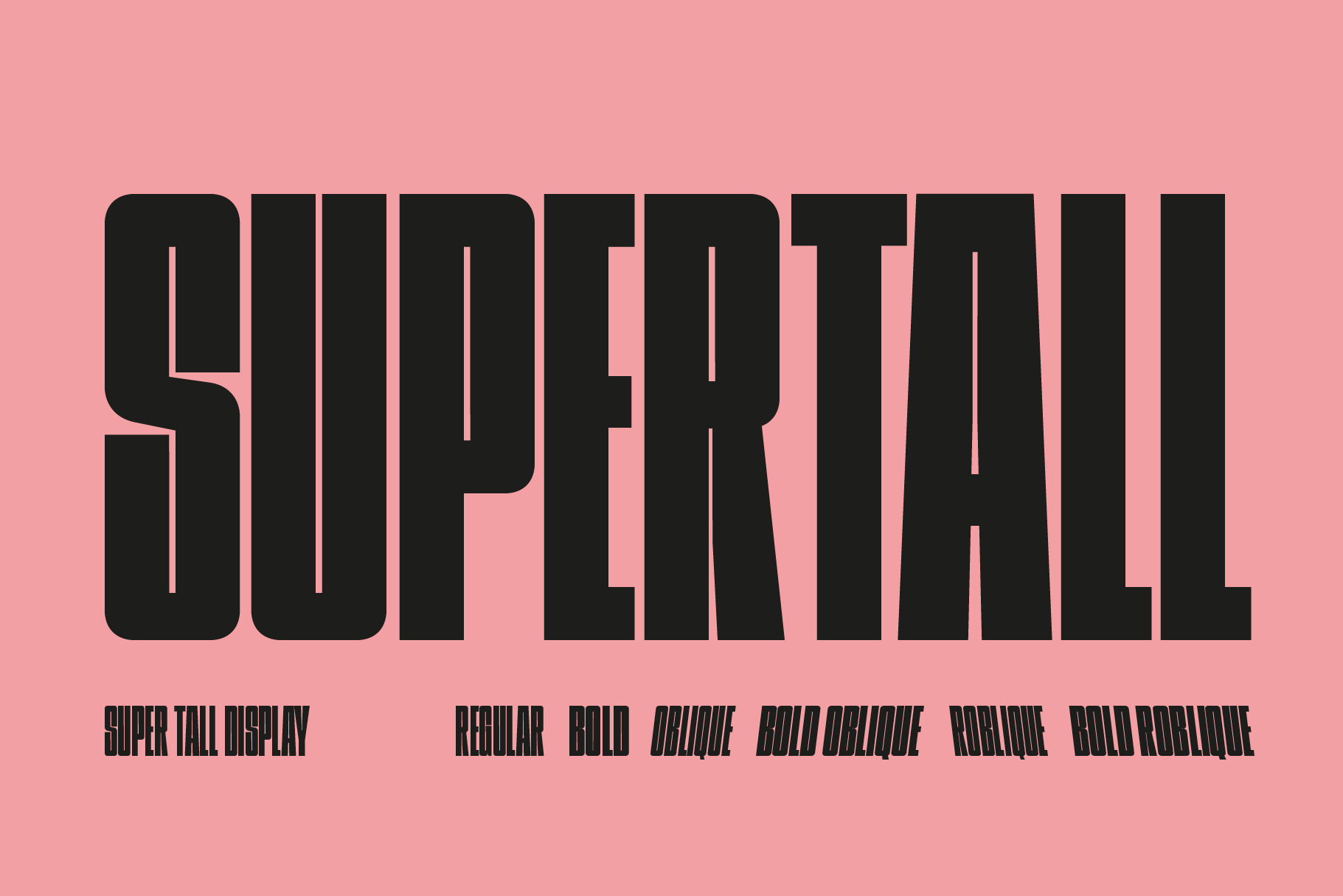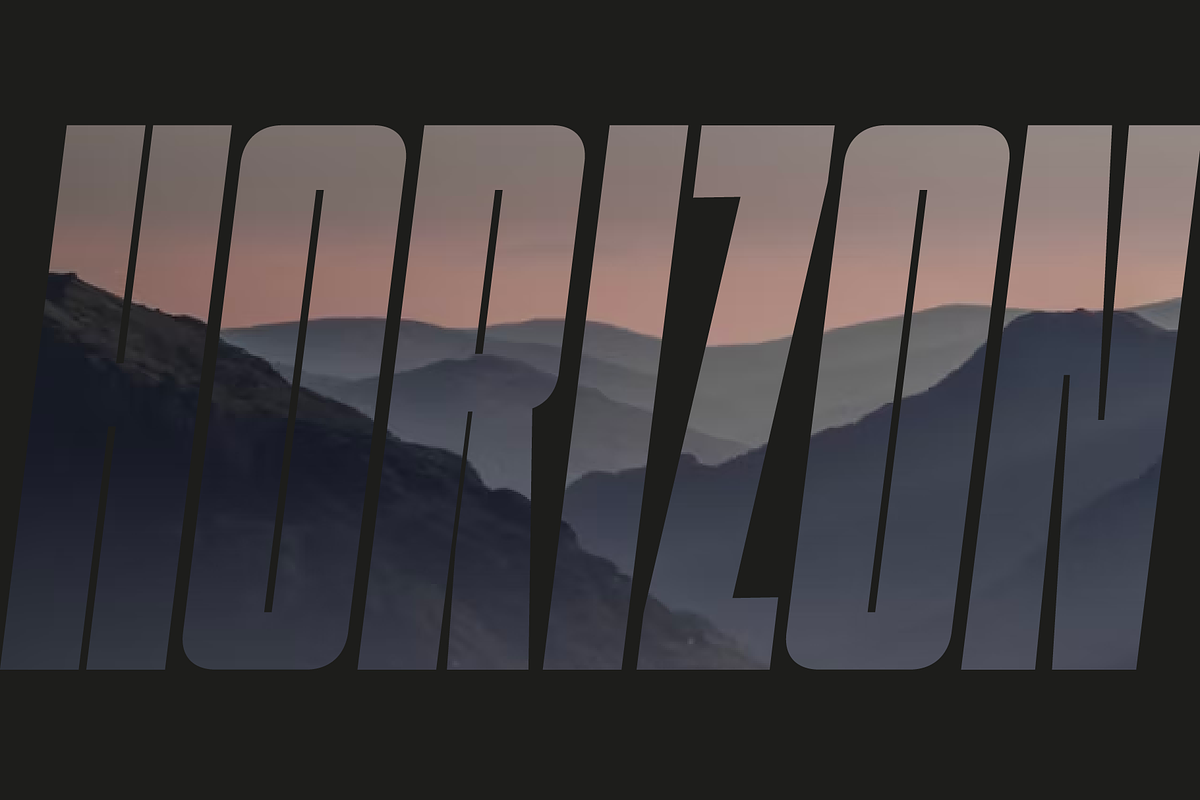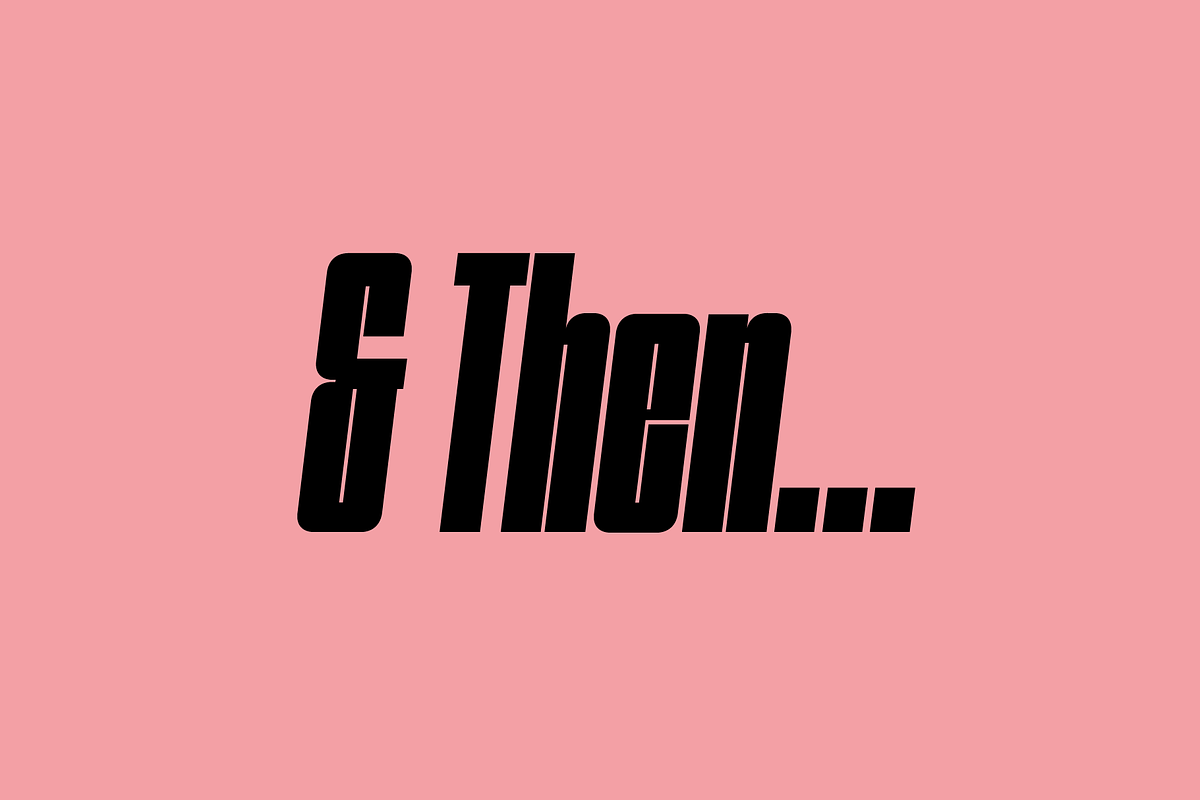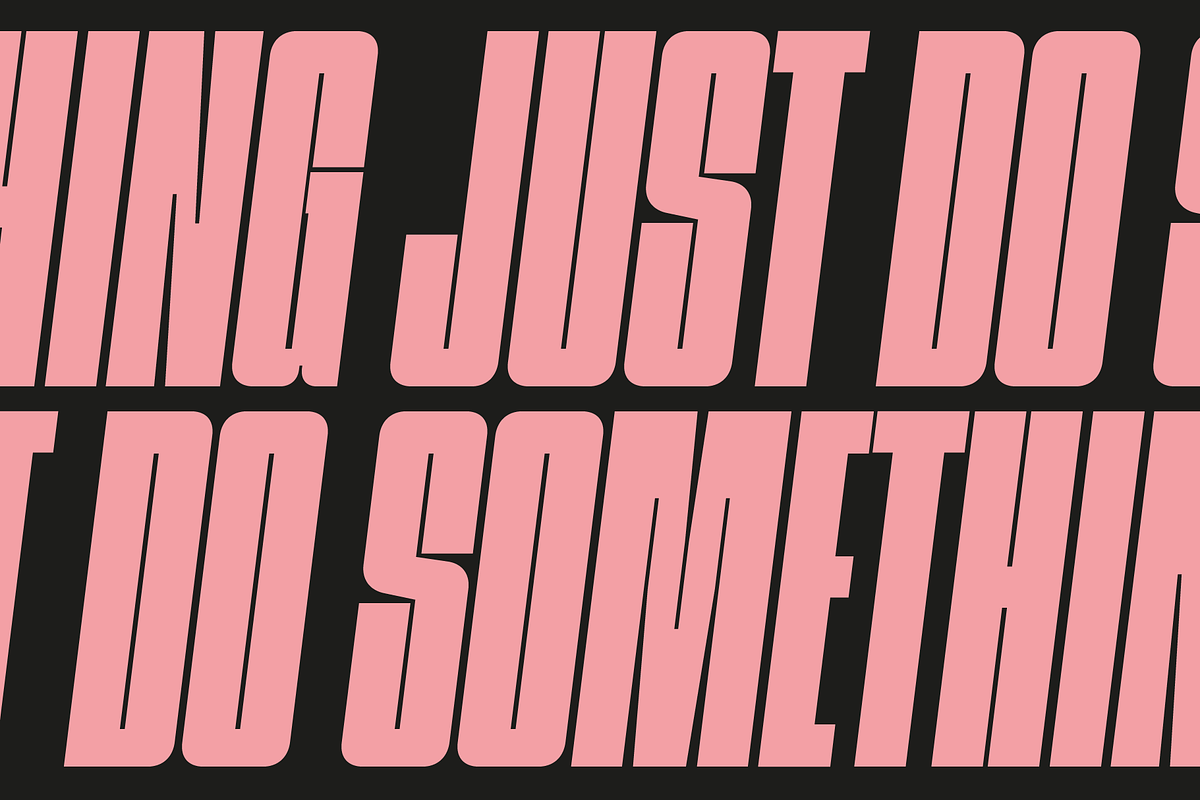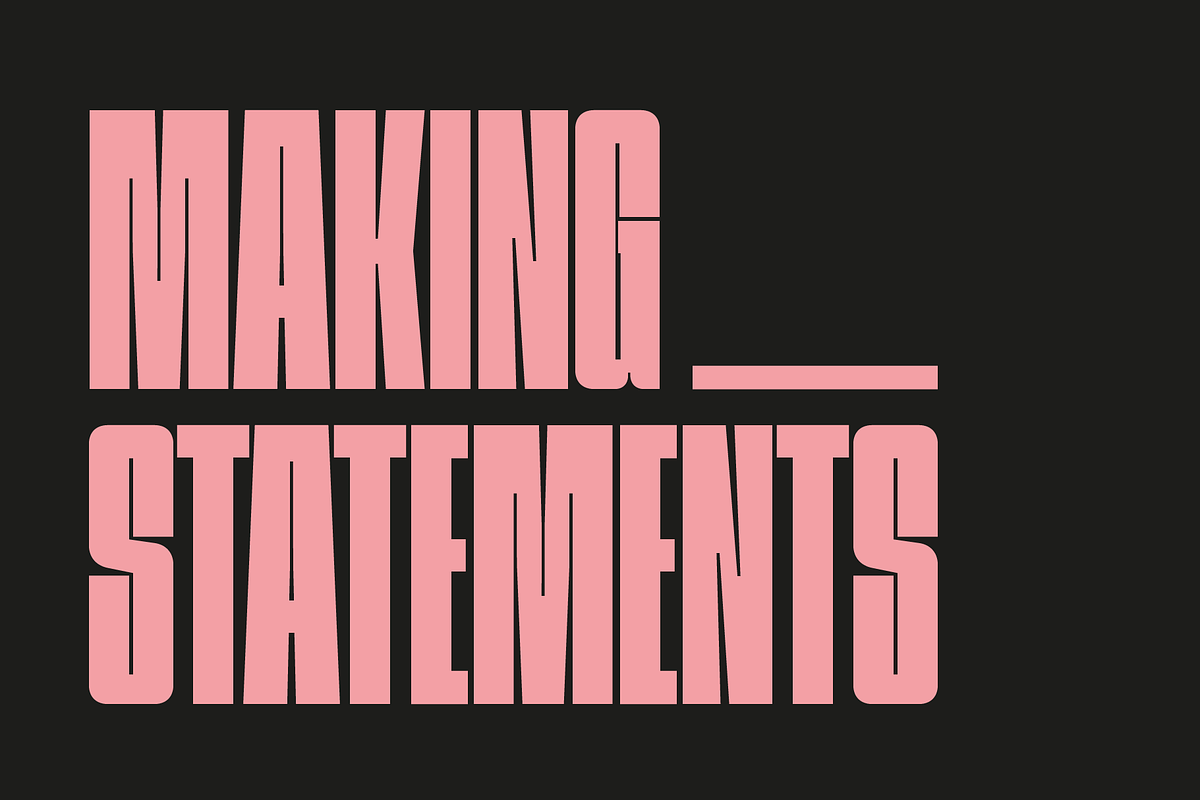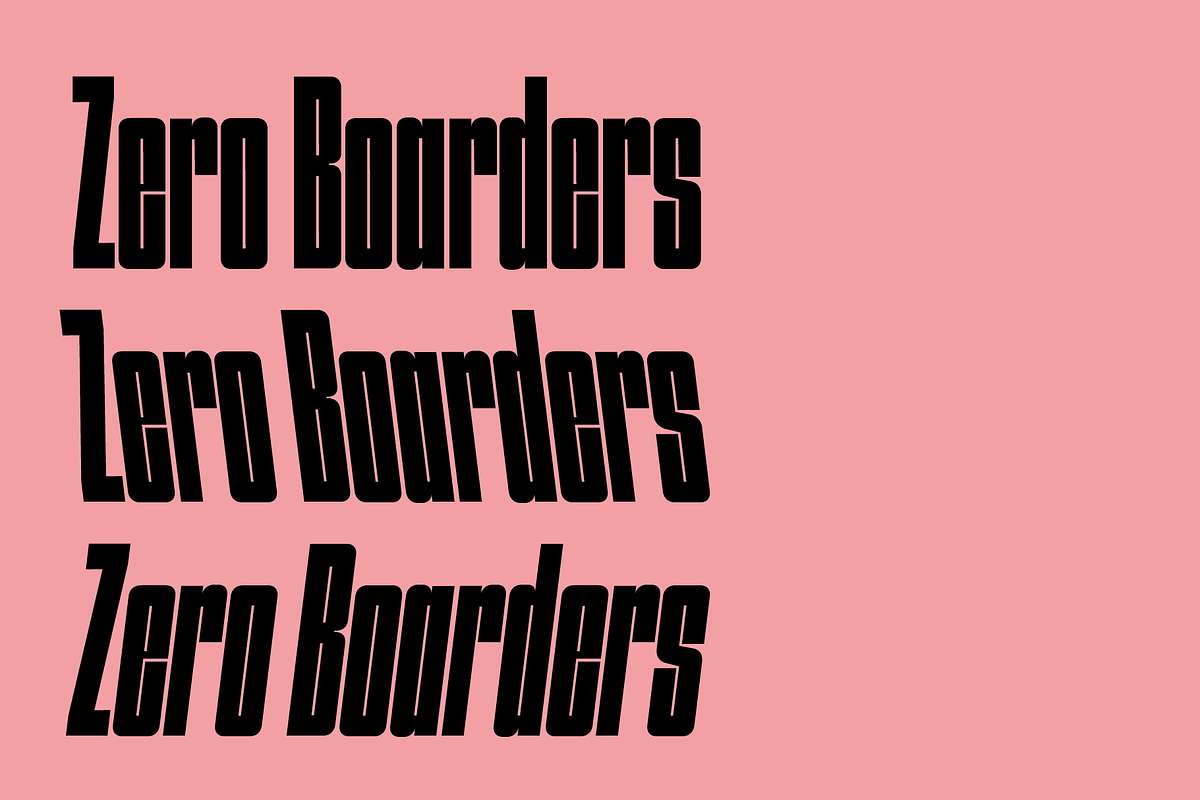
Supertall Condensed Headline Font
Supertall Condensed Headline Font is a sans serif display font that reaches new horizons.
A commanding sans serif headline font built for impact. It's tight kerning, tight aperture and square stature are designed to make a big statement.
Supertall is nothing short of a page-filling beast. Add movement and speed to your titles with the oblique and reverse oblique styles.
The Supertall font is best suited for editorials, large web headings, brand identities and logotype.
The Supertall family - 2 weights, 3 styles:
- Bold
- Regular Oblique
- Bold Oblique
- Regular Reverse Oblique (ROblique)
- Bold Reverse Oblique (ROblique)